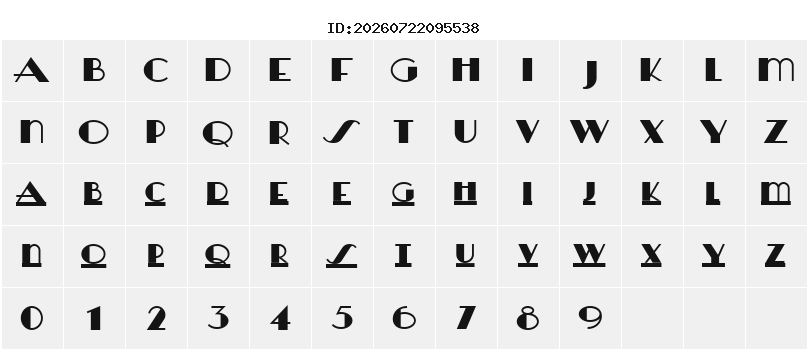
• Font Name: Herald Square NF
• Designer: Nick Curtis
• Manufacturer: Nick's Fonts
Herald Square NF.ttf is a modern, elegant sans-serif font designed for ultimate readability and visual harmony. Perfect for branding, headlines, web design, and print materials.